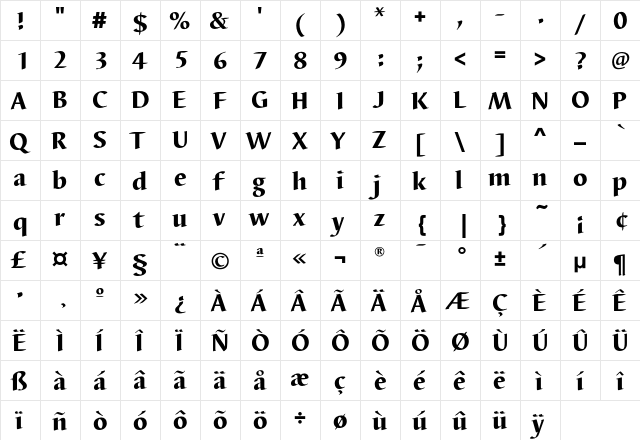
BarbedorEF-Black Regular
Design Context for BarbedorEF-Black Typeface
BarbedorEF-Black takes a measured approach to typography — its balanced proportions and neutral character make it a reliable workhorse for both digital and print work.